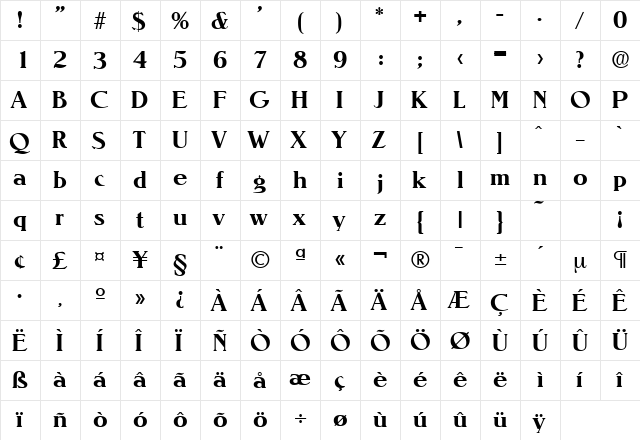
Nevada-Serial DB Bold
Design Context for Nevada-Serial DB Typeface
Nevada-Serial DB takes a measured approach to typography — its balanced proportions and neutral character make it a reliable workhorse for both digital and print work. Its bold stroke weight gives it real presence on the page.